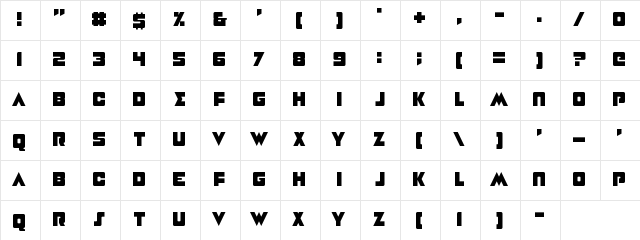
Happy Talk Regular Free Font
Happy Talk Regular
Designer: NAL
Design Context for Happy Talk
Happy Talk is a composed and adaptable typeface that performs quietly and consistently across a wide range of design contexts.
Pro Tip: Use Happy Talk in both headline and body roles to test its range before committing to a single application.